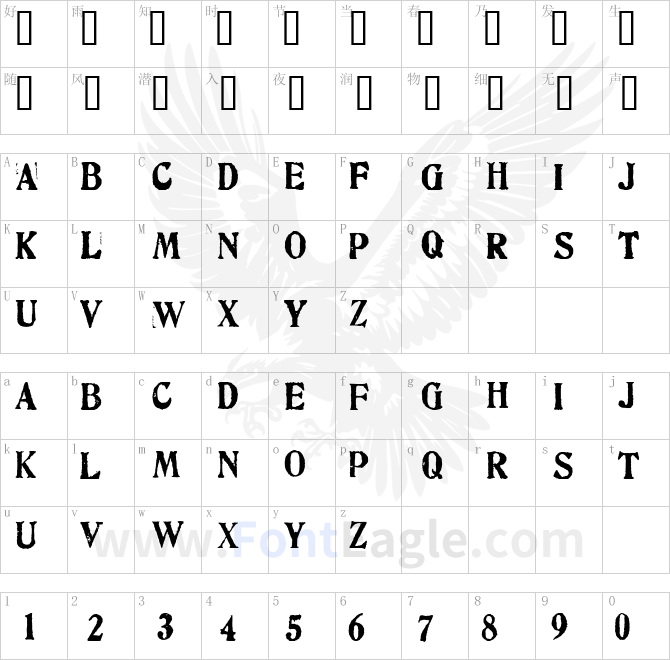
- Font Copyright:ARTISTAMP computer fonts v2.0 © 1999, 2004 Harold Lohner • HLohner@aol.com • www.haroldsfonts.com Based on a set of vintage rubber stamps. Formerly called Fulton Artistamp.